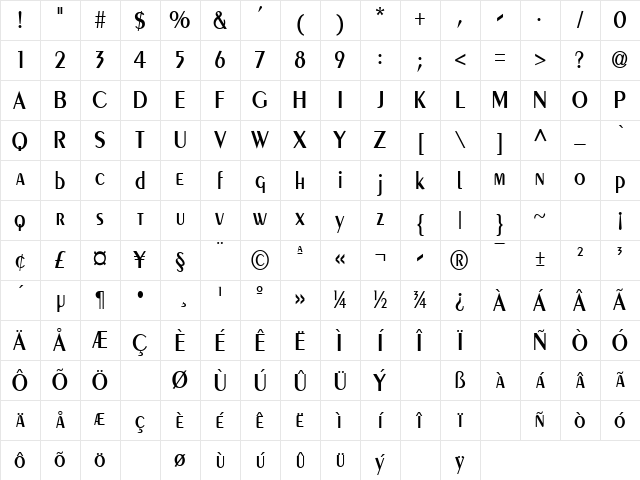
PelicentNarrow Normal
Design Context for PelicentNarrow
PelicentNarrow is a composed and adaptable typeface that performs quietly and consistently across a wide range of design contexts. Its narrow stance lets it pack a punch even in space-constrained designs.
Pro Tip: Use PelicentNarrow in both headline and body roles to test its range before committing to a single application.